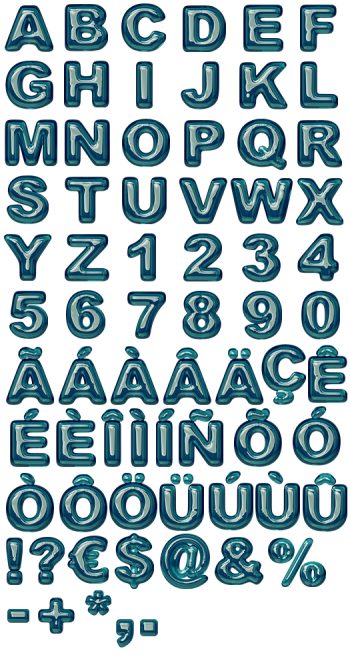
Cake Candy alphabet
The Cake Candy font was originally designed for striking headlines and statements that could live on banners for rallies and protests and it is now currently being built out into a whole family of weights and styles.